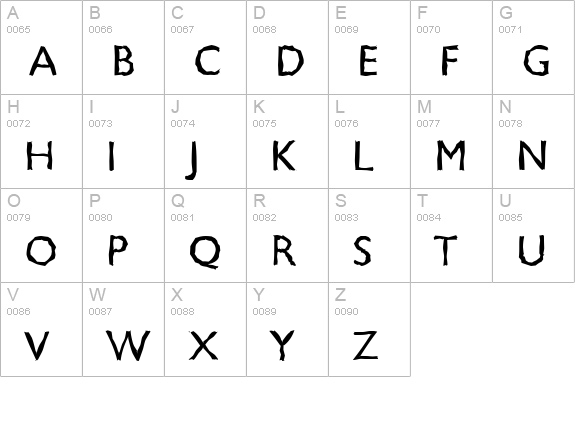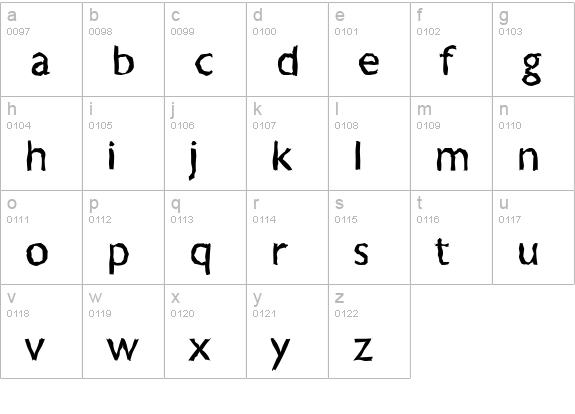
ChantillyRandom-Regular Font Details
ChantillyRandom-Regular is the standard, neutral variant in the ChantillyRandom typeface family \xE2\x80\x94 well suited to general body text, paragraphs, and standard typographic work.
ChantillyRandom-Regular font is a whimsical and charming typeface that exudes a sense of playful elegance. Its irregular shapes and unique letterforms give off a handmade and artistic feel, perfect for adding a touch of creativity to any design project. This font is versatile and can be used for a variety of purposes, from branding and packaging to invitations and social media graphics. What sets ChantillyRandom-Regular font apart is its free-spirited and organic look, making it stand out from more traditional typefaces. The uneven strokes and quirky details add character and personality to your text, creating a visually appealing and engaging design. Best of all, ChantillyRandom-Regular font is freely available to download at FontsMarket.com, making it accessible to anyone looking to add a touch of whimsy to their projects. Whether you're a designer, artist, or hobbyist, this font is sure to inspire your creativity and bring a unique flair to your work.